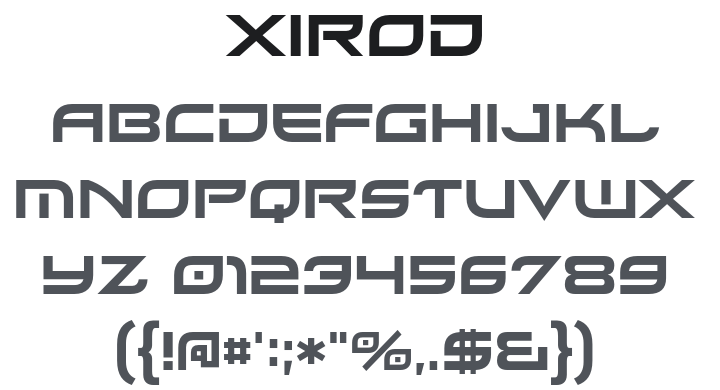
Xirod Font
About Xirod
Xirod is a bold, square-edged sci-fi techno display typeface with sharp, angular all-caps letterforms built on strict geometric rules — each character radiates cold, futuristic authority with clean precision. Smart OpenType features automatically adjust letters to harmonize with adjacent characters, with mysterious stylistic alternates adding extra alien personality. Perfect for sci-fi game titles, tech branding, cyberpunk interfaces, space-themed designs, and any headline needing commanding, extraterrestrial precision.